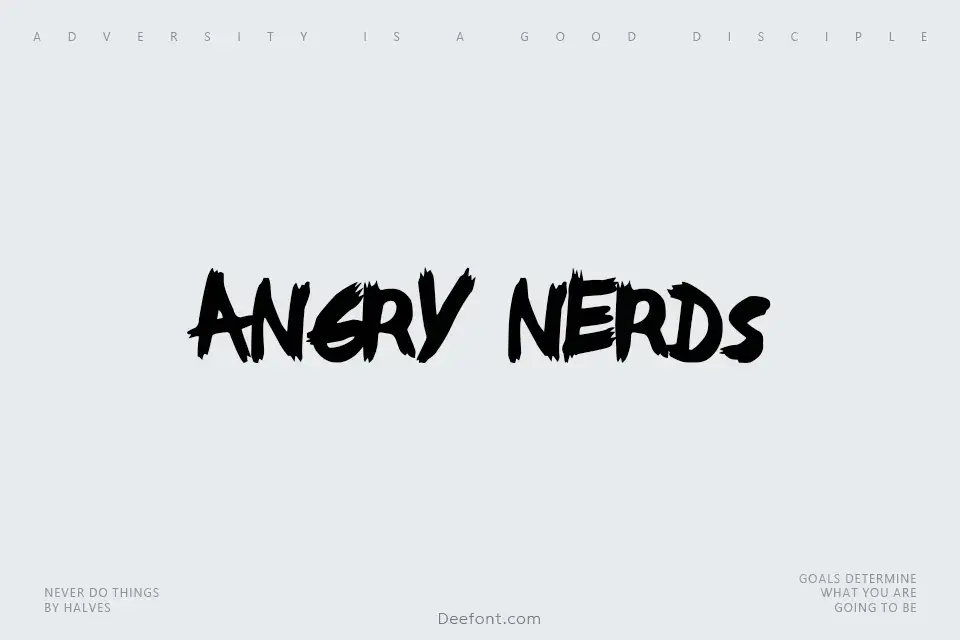
Angry Nerds Font
Angry Nerds is a vibrant, hand-drawn display typeface that combines playful character with a distinctive contemporary edge. Featuring chunky, irregular letterforms with pronounced strokes and comic-inspired aesthetics, this font excels in creating bold, attention-grabbing typography. Its exuberant personality makes it ideal for poster design, logo creation, Halloween-themed projects, greeting cards, and social media graphics. The font’s energetic style conveys humor and creativity, making it particularly well-suited for entertainment, youth-oriented branding, and unconventional design applications. With 69 glyphs supporting basic Latin characters, Angry Nerds delivers maximum visual impact at large display sizes while maintaining legibility across diverse design contexts.